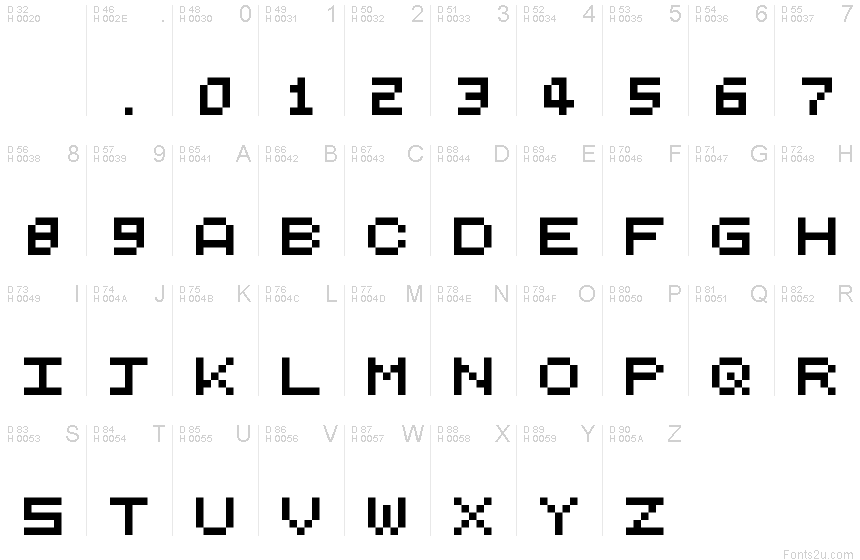
Pixels by playboyt of FontShop International GmbH is a free geometric pixel font built from stark rectangular modules. Its letters use hard right angles and abrupt stepped joins, recalling the blunt silhouettes of early screen lettering. The construction feels deliberately spare and mechanical.
Retro computing and arcade subjects make a natural setting for game graphics, interface mockups, and technology posters. It also suits electronic music artwork and merchandise, where the blocky letters can echo tiled icons or low-resolution imagery. Designers addressing gamers, coding communities, or digital nostalgia will find its squared forms especially relevant.